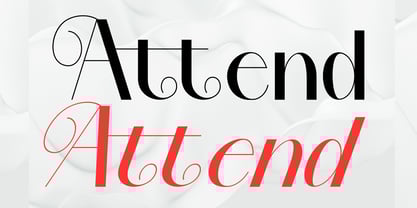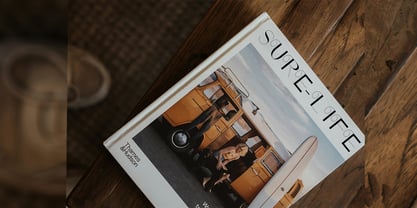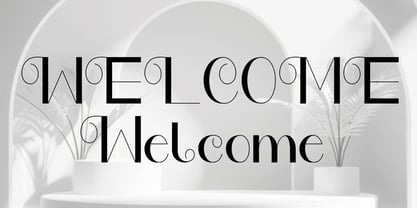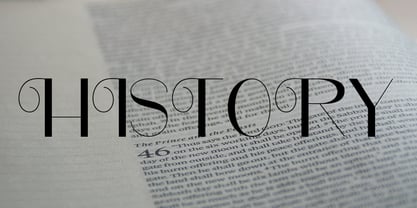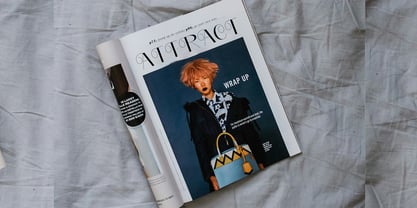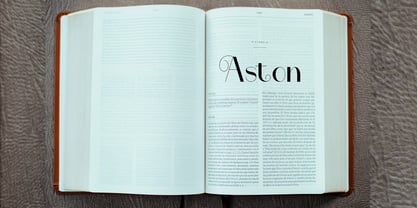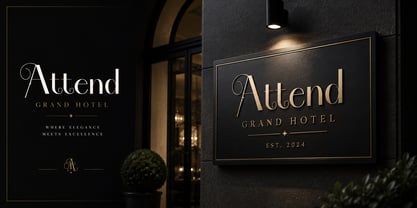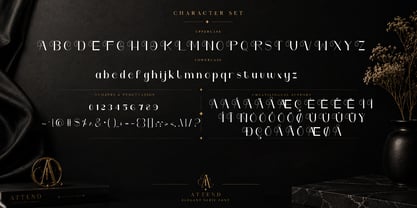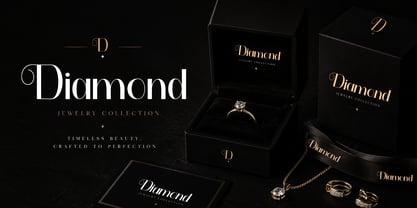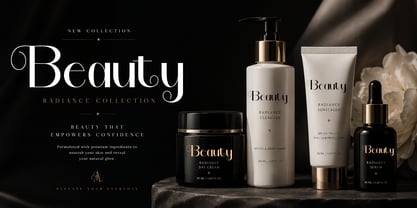
Attend
The Attend Font Family was designed by Teuku Saifullah and published by Shape Studio. Attend contains 3 styles and family package options.
Attend attracts such a subtle, clean, feminine, sensual, glamorous, simple and very readable typeface. The classic style is perfect to apply in various formal forms such as invitations, labels, menus, Logos, fashion, make up, stationery, letterpress, romantic novels, magazines, books, greeting / wedding cards, packaging, labels Attend also features a strong neoclassical sans serif typeface with high contrast, cool, stylish and unique look with alternative fonts, Ligatures, and multilingual support